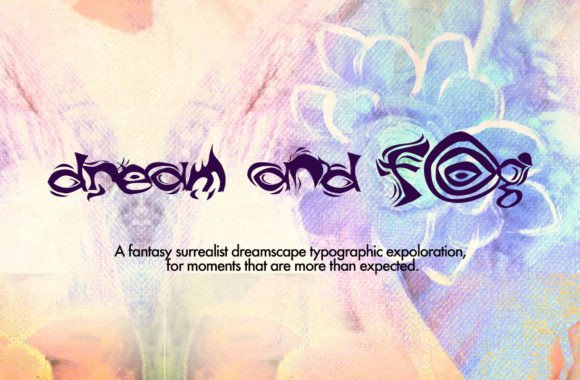
Dream and Fog Font
About the Dream and Fog Font
From logos to headlines, the Dream and Fog Font is the perfect choice for making a lasting impression. Surreal typeface for use in circumstances where you might need something whimsical and dreamlike.
Dream and Fog excels in headline treatments, short-form text for posters and branding materials, and packaging design where a whimsical, slightly surreal aesthetic is desired. Its unique forms work best in larger sizes, showcasing their intricate details effectively. Avoid using it for body copy or UI elements; the highly stylized characters would hinder readability in smaller sizes or extensive text blocks.
The font possesses a distinctly playful and slightly whimsical personality. Its inherent softness makes it suitable for brands focused on fantasy, children’s products, or anything requiring a touch of magic and wonder. Consider pairing it with a clean sans-serif like Lato for contrast and readability in supporting text, or a more geometric sans-serif for a modern feel.
For a more elegant approach, a classic serif like Garamond could provide a sophisticated counterpoint. Avoid pairing it with other highly decorative or script fonts, which would create visual clutter and detract from Dream and Fog’s unique character.
Dream and Fog Font Usage Examples
Dream and Fog Font Example